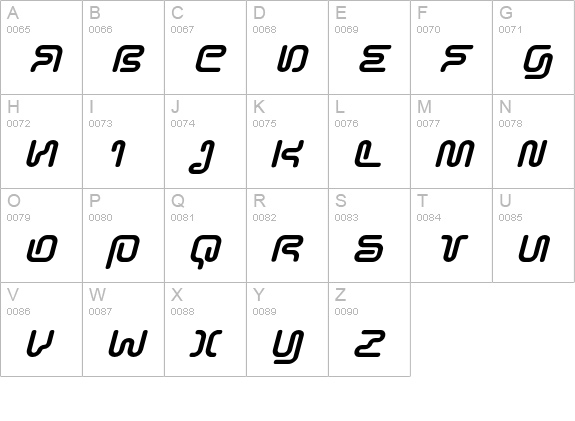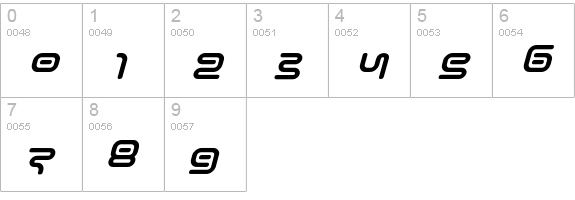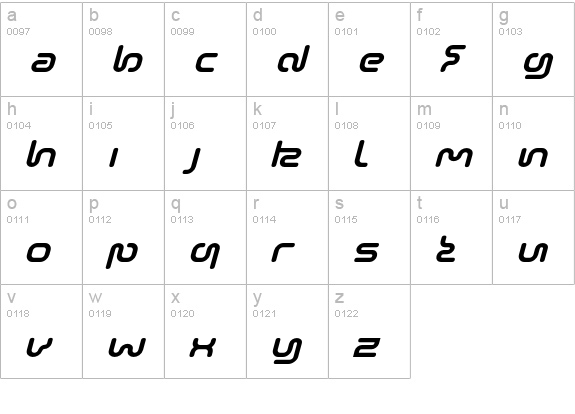
SonicEmpire-Italic Font Details
SonicEmpire-Italic is a distinctive, italic variant in the SonicEmpire typeface family \xE2\x80\x94 well suited to design and typography projects.
SonicEmpire-Italic font is a sleek and modern typeface that exudes an air of sophistication and elegance. Its italicized design adds a touch of dynamism and movement, making it perfect for conveying a sense of speed and energy in your designs. This font is meticulously crafted with attention to detail, resulting in clean and crisp letterforms that are both visually pleasing and highly legible. Each character has been carefully balanced to ensure optimal readability, even at smaller sizes. With SonicEmpire-Italic font, you can effortlessly elevate your projects to the next level. Whether you're designing a logo, creating digital artwork, or crafting eye-catching headlines, this font will bring a sense of professionalism and style to your work. The best part? SonicEmpire-Italic font is available for free! You can easily download it at FontsMarket.com, a trusted source for high-quality fonts. By making this font freely accessible, we aim to support and inspire designers, allowing them to unleash their creativity without any limitations. So don't miss out on the opportunity to add SonicEmpire-Italic font to your collection. Download it today and discover the endless possibilities it offers for your design endeavors. Let your imagination run wild with this striking and versatile typeface, and take your projects to new heights.